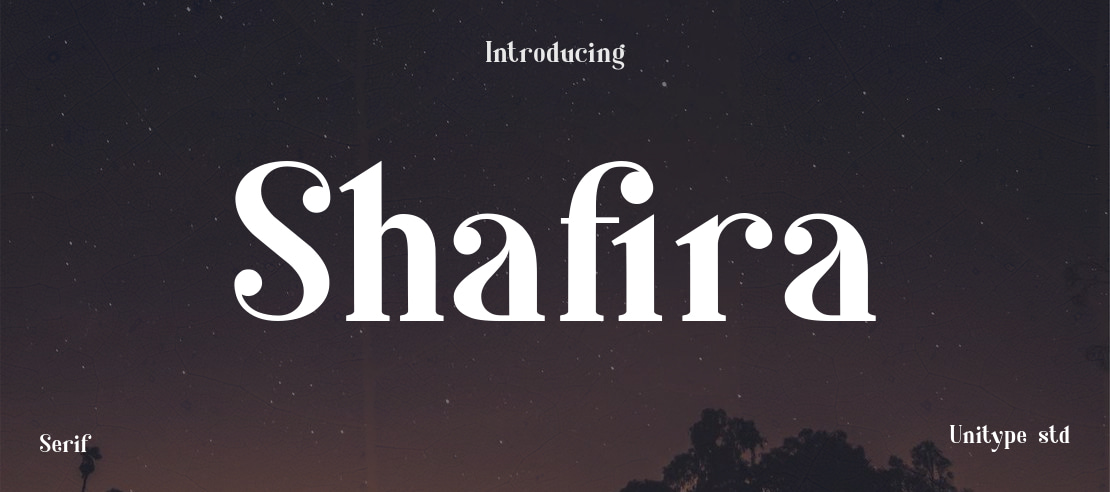
Shafira Font
Shafira Font is perfect for elegant Middle Eastern branding, sophisticated beauty salons, luxury Arabian-inspired designs, refined cultural events, high-end fashion labels, graceful wedding invitations, premium spa materials, mystical spiritual centers, exotic travel promotions, and sophisticated international marketing campaigns.
Shafira Font is exciting because it embodies grace, beauty, and cultural sophistication through flowing letterforms that evoke Middle Eastern elegance and timeless feminine mystique with enchanting appeal. This gracefully designed typeface combines traditional Arabic calligraphic influences with contemporary international aesthetics, making it perfect for brands that want to communicate exotic beauty, cultural richness, and sophisticated femininity.
The Shafira Font family includes elegant weights with Middle Eastern-inspired character styling, featuring graceful decorative elements and cultural flourishes. The font showcases sophisticated design details, refined proportions, and elegant character variations that create a comprehensive typographic system for luxury and culturally-inspired brand applications.
Shafira Font Free Download provides designers with access to premium elegant typography that brings authentic Middle Eastern sophistication to contemporary design projects. This expertly crafted typeface has been developed to honor the artistic traditions and cultural beauty of Arabic design while ensuring optimal performance in modern luxury applications. The font's graceful character and cultural authenticity make it ideal for beauty brands and international businesses.
The cultural elegance of Shafira Font makes it an invaluable tool for beauty professionals, luxury hospitality brands, and cultural organizations that need typography capable of communicating Middle Eastern sophistication and exotic appeal. The font's graceful character helps establish connections with audiences seeking refined cultural experiences and authentic international luxury.
Beauty salons, luxury spas, and international fashion brands consistently choose Shafira Font for its ability to convey Middle Eastern elegance and cultural sophistication through typography. The font excels in applications where establishing cultural credibility and exotic luxury appeal are essential to brand positioning, making it particularly effective for beauty services, luxury hospitality, and international brands targeting culturally sophisticated consumers.
This font's comprehensive character set includes elegantly-styled letterforms, refined numerals, graceful punctuation marks, and cultural symbols that support authentic Middle Eastern typography composition. The consistent elegant styling maintains the sophisticated cultural theme throughout all characters while ensuring professional readability across all beauty and cultural design projects requiring Shafira Font Free Download functionality.